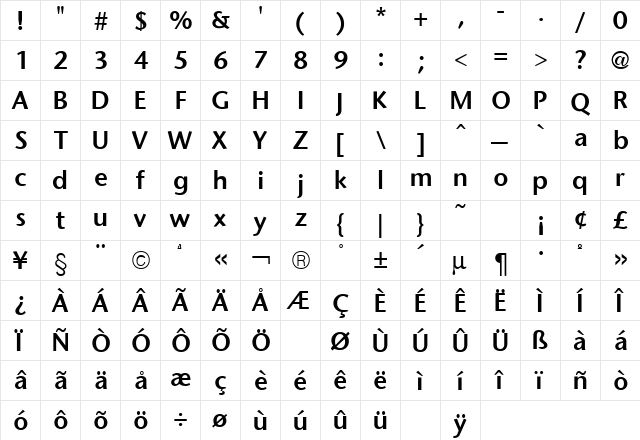
Stone Sans Semi Bold Regular
Design Context for Stone Sans Semi Bold Typeface
Stone Sans Semi Bold offers clean, dependable letterforms without strong stylistic allegiance, making it a practical choice for designers who need flexibility. The heavy weight commands attention and anchors typographic hierarchies.
Pro Tip: Use Stone Sans Semi Bold in both headline and body roles to test its range before committing to a single application.